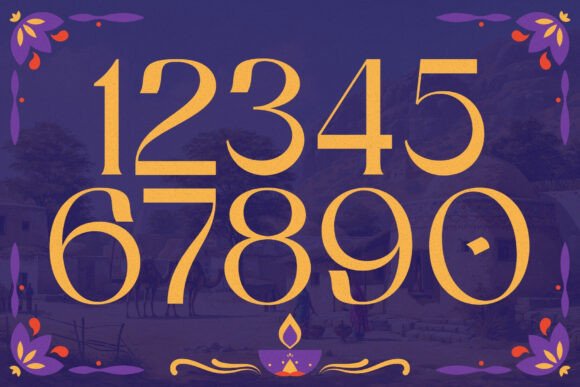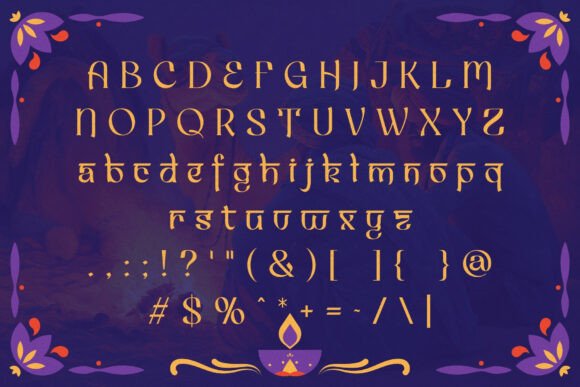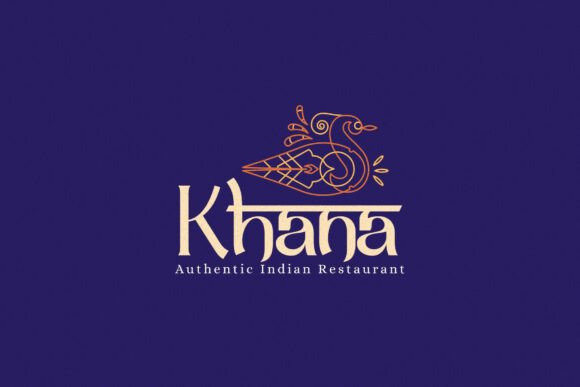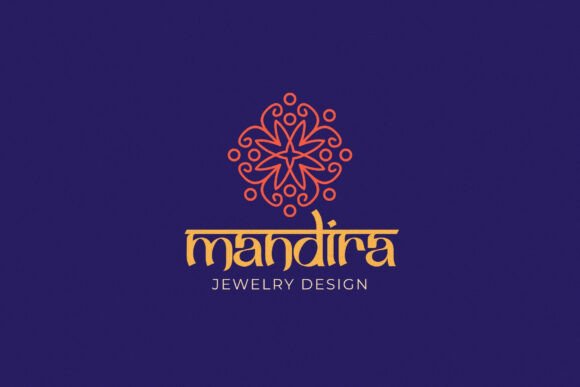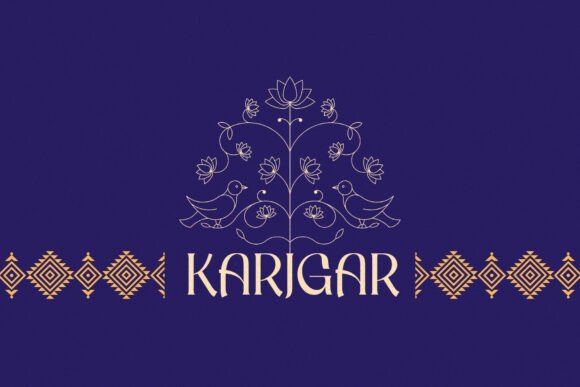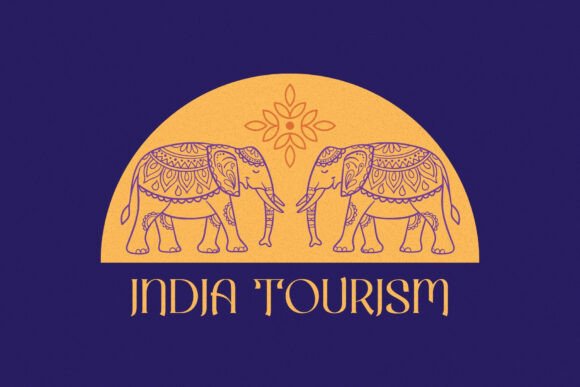
Introduction to Pushkar Sands Font
Pushkar Sands is an enchanting Indian-inspired display typeface that captures the soul of Rajasthan’s desert beauty and the festive warmth of India’s cultural heritage.
With both uppercase and lowercase letters, this font blends traditional elegance with modern design sensibility Perfect for festival posters, wedding invitations, brand identities, packaging, spiritual projects, travel designs, YouTube thumbnails, and expressive headlines, Pushkar Sands adds a warm Indian spirit to any creative work.
Key Features of Pushkar Sands Font